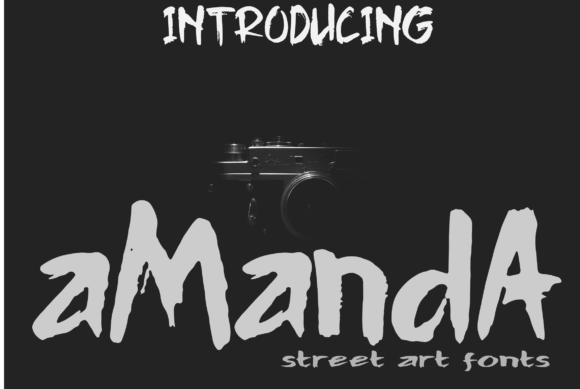
The Power of Amanda Font: Unleashing Creativity with a Rough and Strong Brush Font
I still remember the design project that led me to discover the amazing Amanda font. I was working on a branding project for a outdoor gear company, and I needed a font that could convey a sense of ruggedness and adventure. After hours of searching, I stumbled upon Amanda, and it was love at first sight! 💥 The unique blend of rough and strong brush strokes instantly resonated with the project’s vibe, and I knew I had found the perfect fit.
An Honest Review of Amanda Font
What I Love About Amanda ✨
- 💪 Its bold and powerful vibe makes it perfect for headlines, titles, and statements.
- 🌟 The rough brush strokes add a touch of authenticity and handmade feel to any design.
- 🎨 The font’s versatility allows it to work well with a variety of design styles, from rustic to modern.
- ✅ It’s surprisingly legible, even at smaller sizes, making it a great choice for body text.
- ⚠️ Some letters, like the lowercase “k” and “q”, can be a bit tricky to read if you’re not used to the font’s quirks.
- ⚠️ The font’s rough texture can be overwhelming if overused or paired with too many other bold elements.
Similar Fonts and Alternatives 🔍
- Bramble: A rustic, handwritten font with a similar rough texture to Amanda. Use Bramble for designs that require a more whimsical touch.
- Kabel: A bold, geometric font with a similar sense of strength and power. Use Kabel for designs that require a more modern and sleek look.
- Pacifico: A beautiful, script font with a similar sense of elegance and sophistication. Use Pacifico for designs that require a more refined and luxurious feel.
- Rock Salt: A rough, handwritten font with a similar sense of ruggedness and playfulness. Use Rock Salt for designs that require a more casual and laid-back vibe.
The Story Behind Amanda Font 📚
Amanda font was designed with the intention of creating a bold and powerful typeface that could convey a sense of strength and confidence. The designer, inspired by the raw energy of street art and graffiti, aimed to create a font that could capture the essence of urban culture. With its rough brush strokes and unique character, Amanda font has become a favorite among designers and creatives.
- A: Amanda font works best as a headline or title font, but it can also be used for body text in smaller sizes.